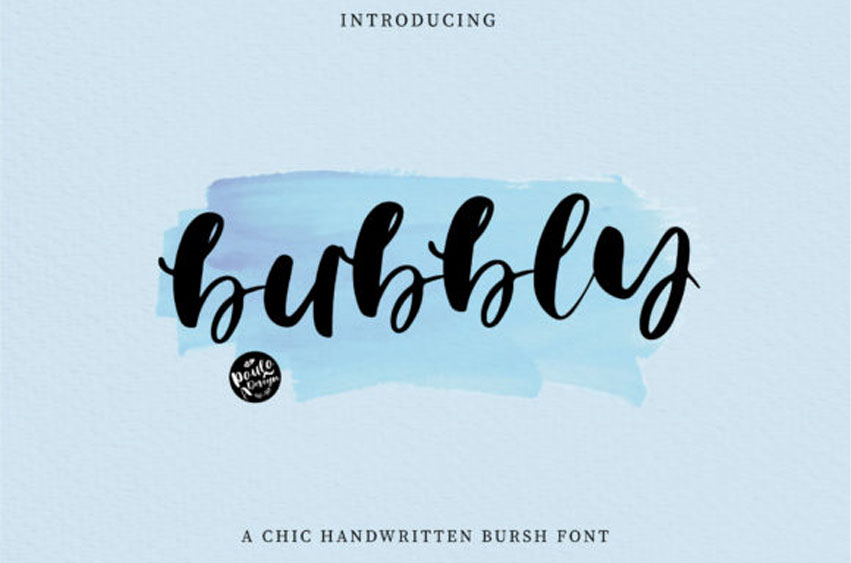
Bubbly Brush Font is a chic brush font. It has a stylish look which is perfect for high-impact headlines.
It can be used for invitations, branding, blog posts, and much more!